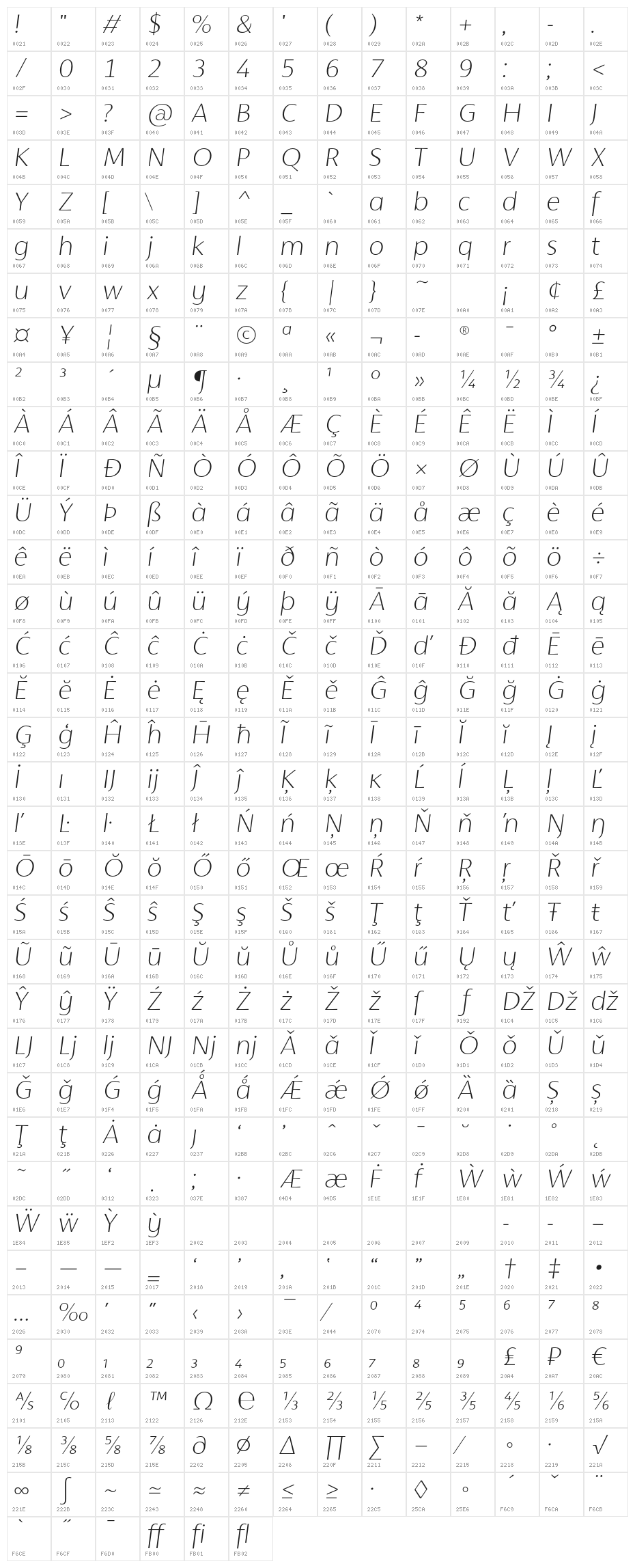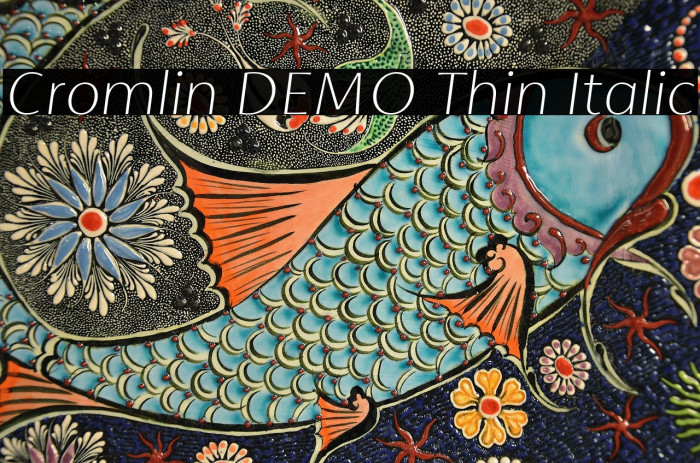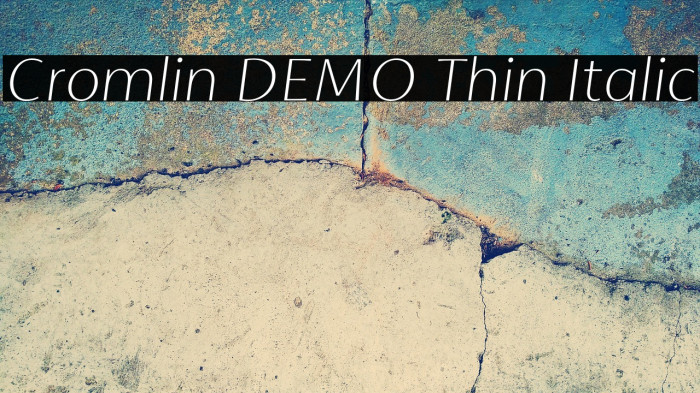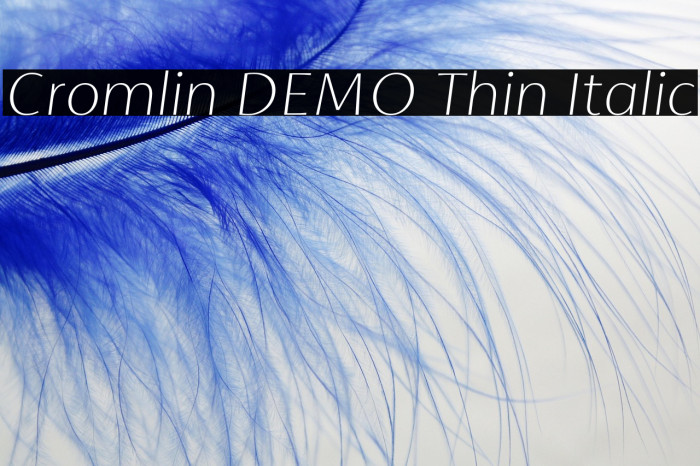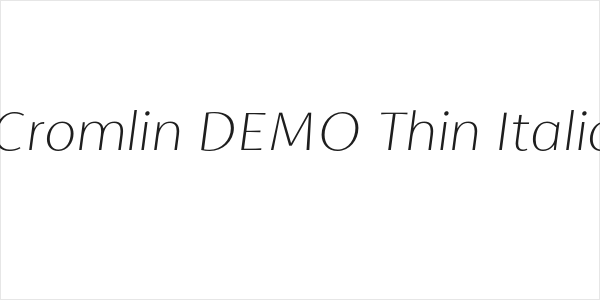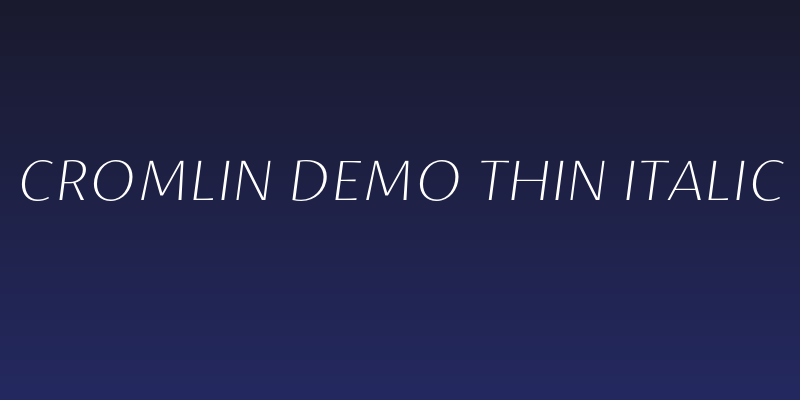
Cromlin DEMO Thin Italic Font
Cromlin DEMO Thin Italic Description
This font features a sleek and modern design with thin, elegant strokes that give it a refined appearance. The italic style adds a dynamic and sophisticated touch, making it suitable for contemporary design projects. Its clean lines and minimalistic approach ensure readability while maintaining a stylish aesthetic. The characters are well-proportioned, with a slight slant that enhances the overall fluidity of the text. The font's thin weight is perfect for creating a sense of delicacy and elegance, making it ideal for use in high-end branding, editorial design, and luxury product packaging.
| Proposed Projects | Ideal for high-end branding, editorial design, luxury product packaging, and contemporary web design. |